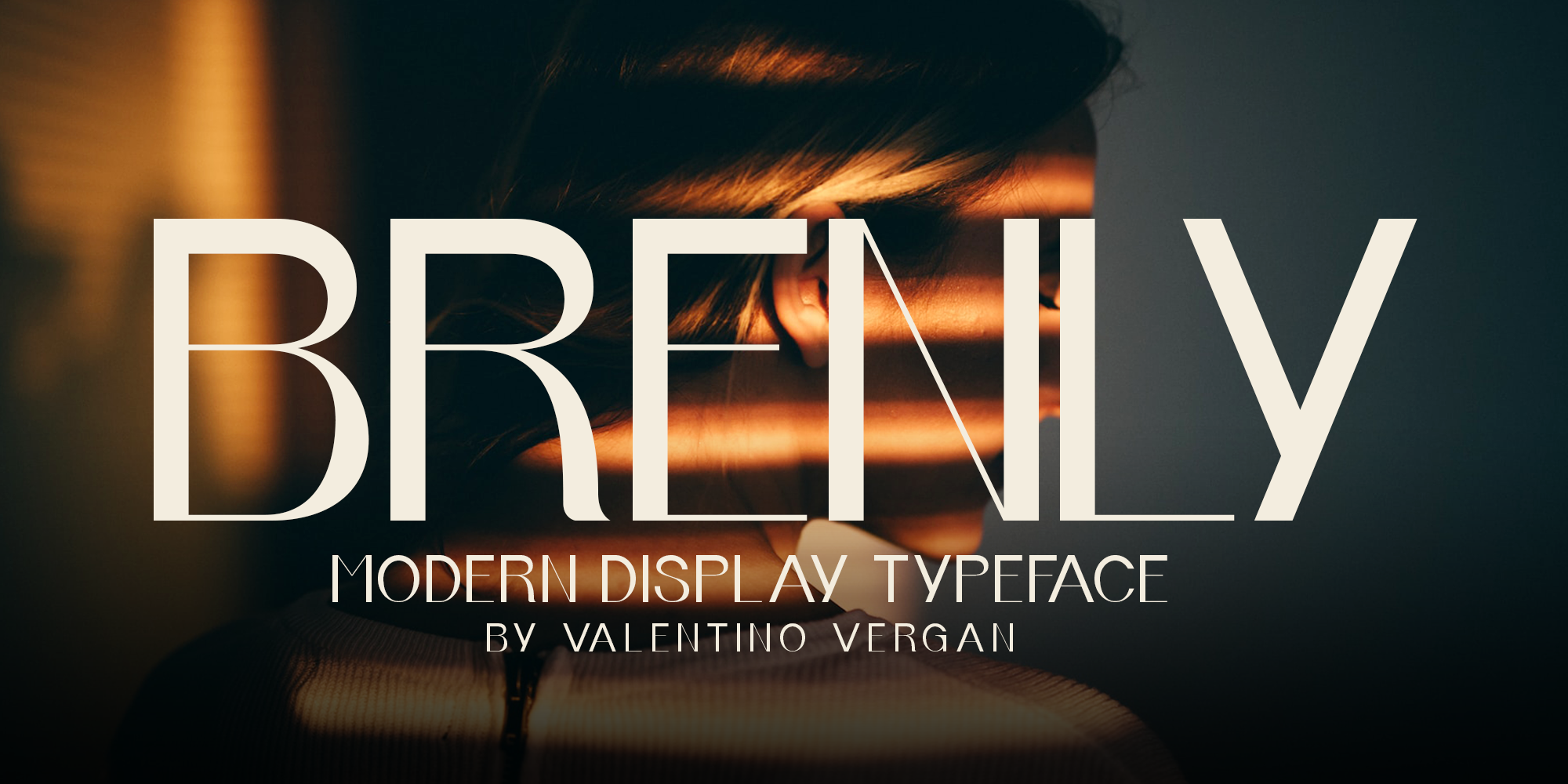
Brenly Font is perfect for contemporary café branding, modern lifestyle blogs, trendy fashion boutiques, urban design studios, millennial-focused marketing, creative agency materials, stylish social media graphics, hipster restaurant menus, modern art galleries, contemporary workspace design, youthful brand identity, and fresh creative communications. This vibrant typeface brings contemporary energy to projects requiring modern sophistication and youthful appeal.
What makes Brenly Font so exciting is its exceptional ability to capture the dynamic spirit and fresh creativity of contemporary culture through boldly modern letterforms that embody the innovative energy and stylish confidence of today's creative generation. The font features sleekly designed characters with contemporary proportions and trendy details that reflect the fast-paced evolution and creative experimentation of modern design culture. Its energetic character conveys innovation and style while maintaining excellent readability, making it perfect for brands seeking to communicate contemporary relevance, creative energy, and the dynamic spirit of modern culture with authentic youthful sophistication.
The Brenly Font family includes multiple contemporary weights and trend-inspired variations that showcase its modern character while providing comprehensive design flexibility for various creative and lifestyle applications. Each variant maintains the original's fresh energy while offering extensive options for creating dynamic typographic compositions that celebrate contemporary culture and creative innovation.
Whether you're developing modern brand identities, creating contemporary marketing materials, or designing trendy communications, Brenly Font Free Download offers the perfect combination of modern authenticity and contemporary functionality. This exceptional typeface brings genuine creative energy to design projects, making it an indispensable choice for designers seeking typography that effectively communicates contemporary style, creative innovation, and the vibrant spirit of modern culture with authentic youthful dynamism.